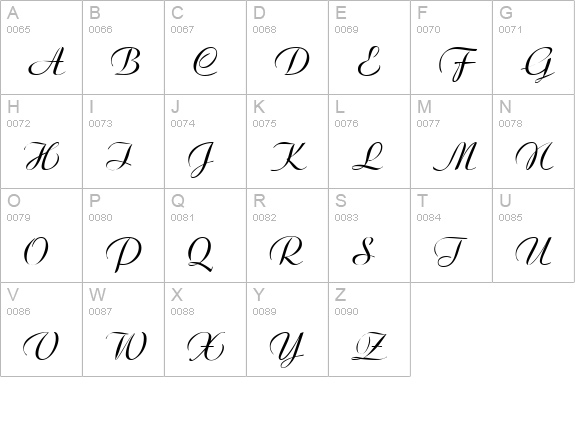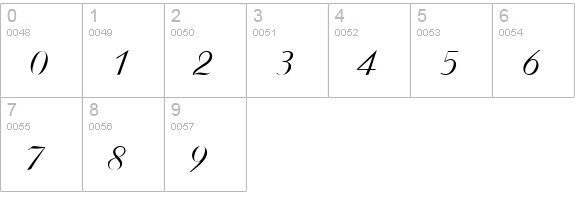
Ariston Normal Font Details
Ariston Normal is the standard, neutral variant in the Ariston typeface family \xE2\x80\x94 well suited to general body text, paragraphs, and standard typographic work.
Ariston Normal font is a modern and versatile typeface that exudes elegance and sophistication. With its clean lines and balanced proportions, this font is perfect for a wide range of design projects, from branding to editorial design. The Ariston Normal font strikes the perfect balance between classic and contemporary, making it suitable for both traditional and modern designs. This font is available for free download at FontsMarket.com, where you can easily access and use it in your projects without any restrictions. Whether you are designing a logo, creating a poster, or working on a website, Ariston Normal font will bring a touch of sophistication and style to your work. Download this font today and elevate your design projects with its timeless appeal and effortless charm.